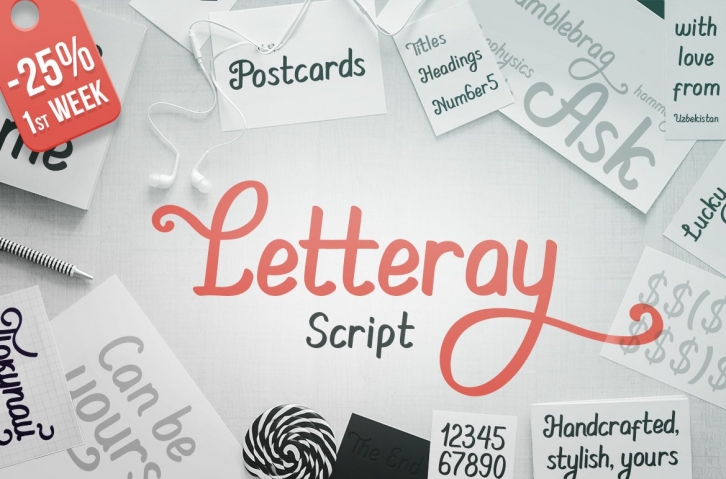
Letteray Script — stylish handcrafted script typeface for headings, titles, typography tricks, posters, t-shirt prints, names and only your imagination may limit situations and works where you can use this type.
This font inspired by many package designs and can bring to your work more individuality and polished look.
OpenType Alternatives and Ligatures available.